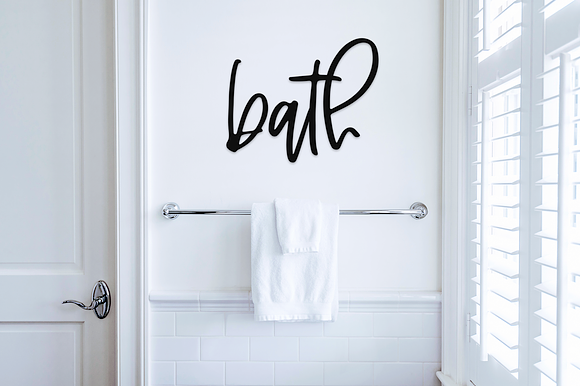
Otherway Svg Solid Script Font
Otherway Svg Solid Script Font by kaitlynn.albani is a font selected for branding, posters, packaging, typography.
Why Otherway Svg Solid Script Font is worth a look
Otherway Svg Solid Script Font by kaitlynn.albani fits naturally into Branding, posters, packaging, typography.